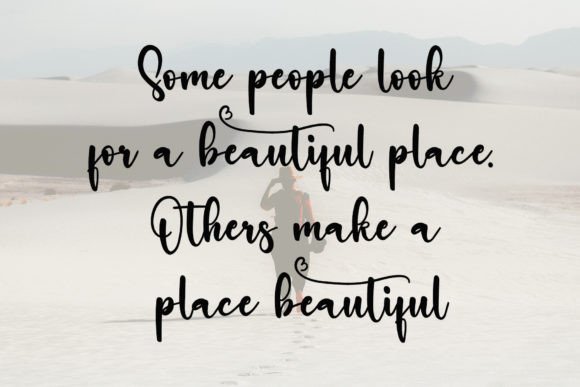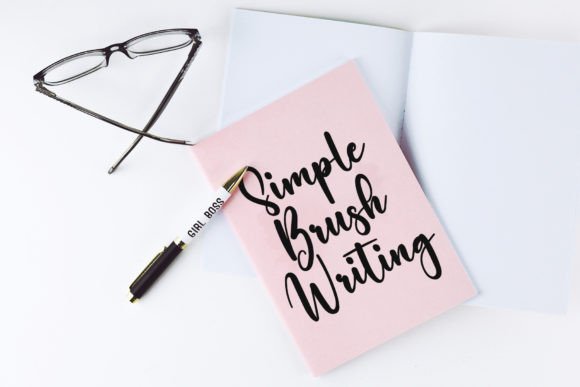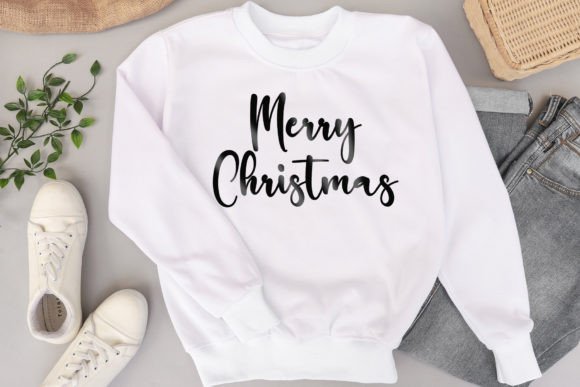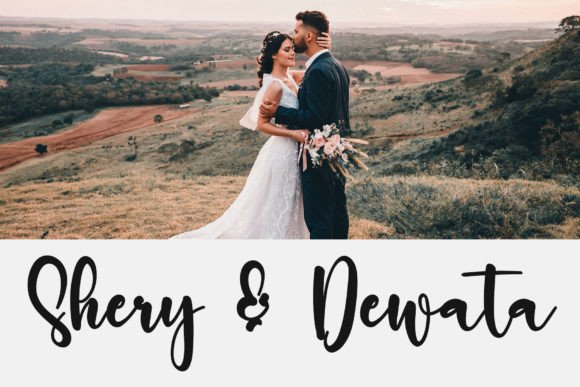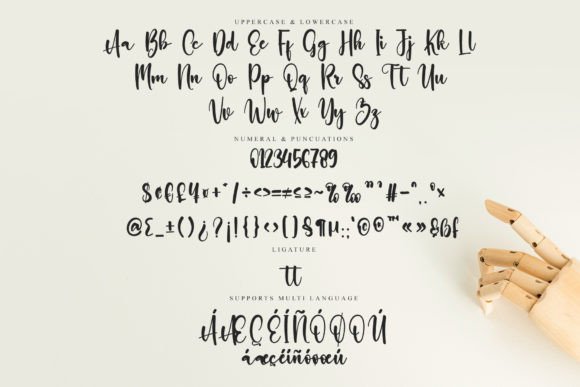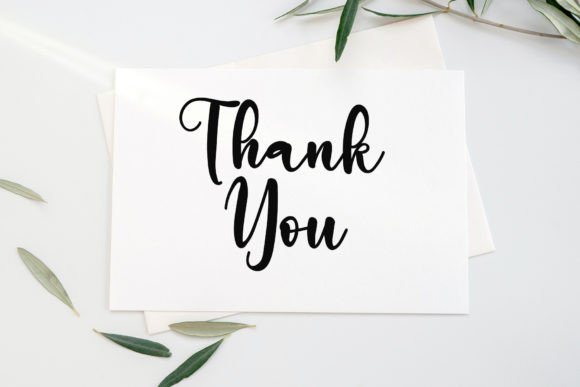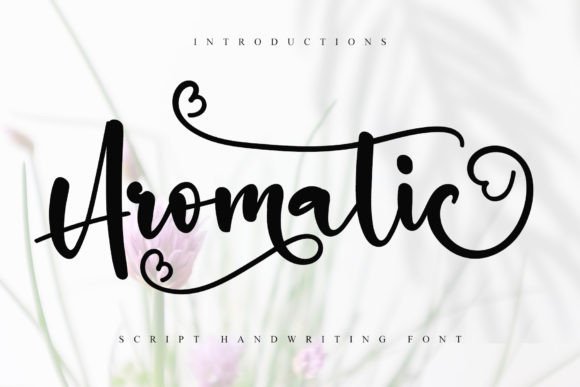
Aromatic Font: Elevate Your Designs with Elegance and Sophistication
In the world of design, typography plays a crucial role in conveying the tone and aesthetic of a project. Whether you’re a seasoned designer or a crafty DIY enthusiast, finding the right font can make all the difference. That’s where Aromatic Font comes in – a magical handwritten font designed to add a touch of elegance to your designs. In this article, we’ll explore the features and benefits of Aromatic Font, and how it can help you turn your creative ideas into stunning works of art.
The Charm of Aromatic Font
Aromatic Font is a carefully crafted handwritten font that exudes sophistication and refinement. Its unique, flowing script is perfect for adding a touch of luxury to any design project. Whether you’re looking for fonts for Instagram, calligraphy scripts for DIY projects, or elegant typography for branding and advertising, Aromatic Font is the perfect choice. Its versatility and charm make it an excellent addition to any designer’s toolkit.
Features of Aromatic Font
- Handwritten script: Aromatic Font features a beautiful, handwritten script that adds a personal touch to any design.
- Elegant and sophisticated: The font’s flowing curves and refined lines make it perfect for designs that require a touch of luxury and sophistication.
- Versatile: Aromatic Font can be used for a wide range of design projects, from Instagram graphics to calligraphy scripts and branding materials.
Benefits of Using Aromatic Font
So, why choose Aromatic Font for your design projects? Here are just a few benefits of using this magical font:
- Adds elegance to your designs: Aromatic Font’s sophisticated script adds a touch of luxury to any design, making it perfect for high-end branding and advertising projects.
- Perfect for creative projects: Whether you’re working on a DIY project or a professional design brief, Aromatic Font is the perfect choice for adding a personal touch to your work.
- Stand out on social media: Use Aromatic Font to create eye-catching Instagram graphics that will help you stand out in a crowded feed.
- Enhances creativity: The font’s unique and flowing script can help inspire your creativity and take your designs to the next level.
Tips for Using Aromatic Font
To get the most out of Aromatic Font, here are a few tips to keep in mind:
- Use it sparingly: Aromatic Font is a statement font, so use it sparingly to add emphasis to key words or phrases.
- Experiment with colors: The font looks great in a range of colors, so don’t be afraid to experiment and find the perfect hue for your design.
- Pair it with other fonts: Aromatic Font pairs well with a range of other fonts, so try combining it with bold sans-serifs or elegant serifs for added contrast.